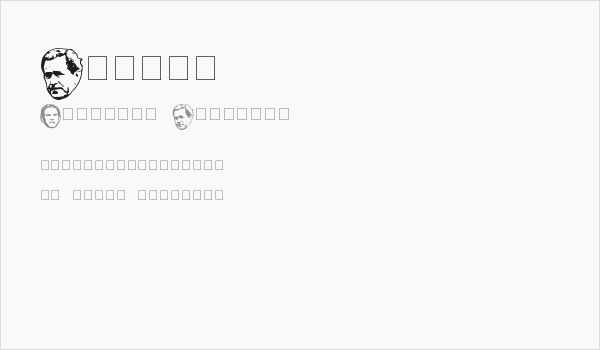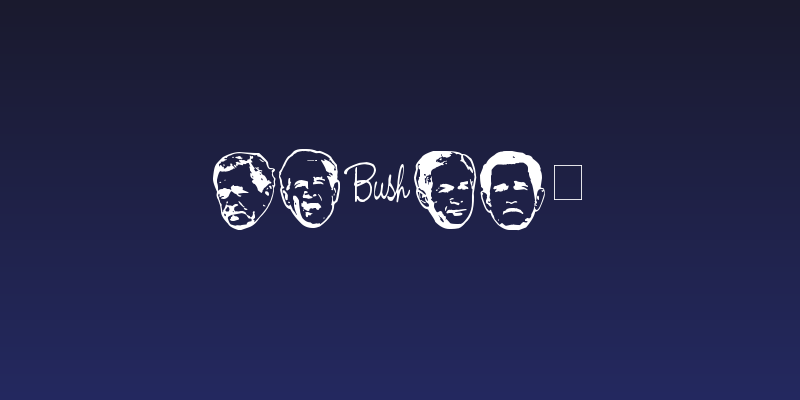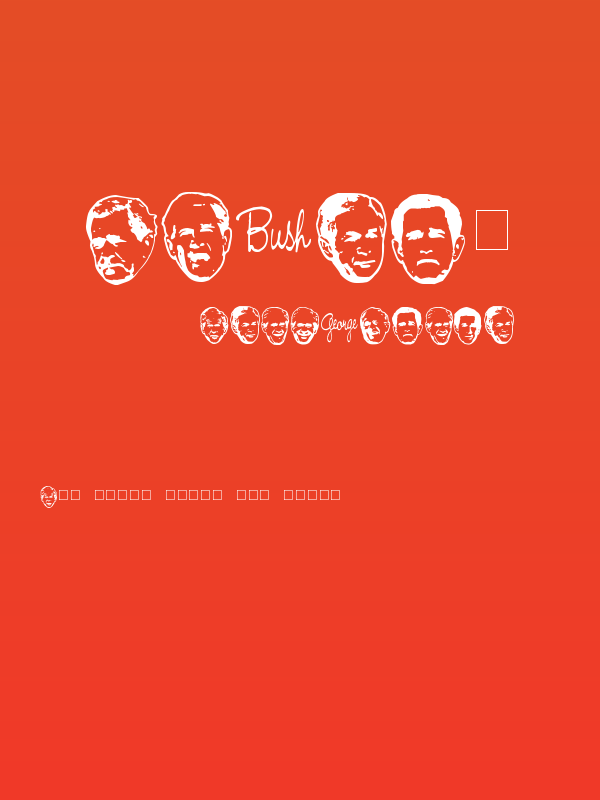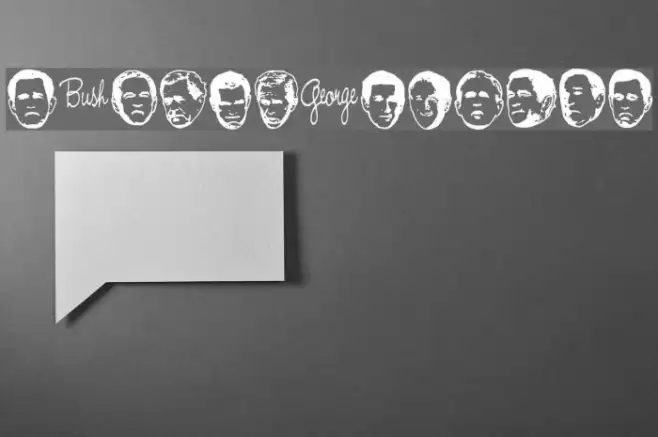
Dubya2 Font
Dubya2 Description
A novelty display font featuring illustrated caricature faces and a handwritten script for select letters, with a playful and unconventional style.
| Overall Style | Decorative, Playful, Satirical |
| Use Case | Logos, Headlines, Posters, Themed graphics |
| Proposed Projects | Humorous posters, parody artwork, satirical publications, novelty greeting cards. |